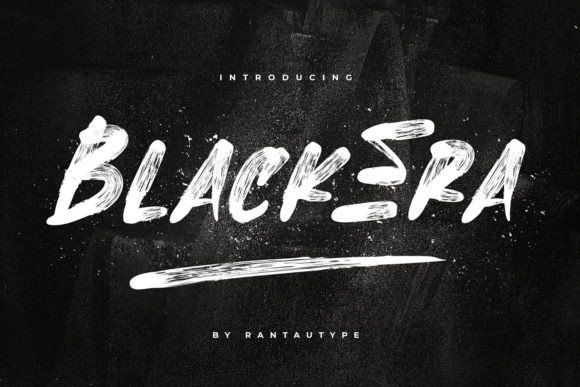
An Honest Review of Black Era Font
- ✨ Authentic Hand-Brush Feel: Black Era Font has an authentic hand-brush display feel that adds a touch of imperfection and personality to any design project.
- ✅ Perfectly Paired Complimentary Marker Font: The font comes with a complimentary marker font that pairs perfectly with the main font, making it easy to create visually appealing designs.
- 🔥 Super Handy Set of Swashes: The font includes a set of swashes that can add a creative touch to any design project.
- 📚 Modern, Readable, Stylish, Strong, Cool, Bold, and Catchy: Black Era Font is a versatile font that can be used for a wide range of design projects, from watermarks on photography to logo design, quotes, album covers, magazines, t-shirts, and more.
While Black Era Font is an amazing font, there are a few quirks to be aware of: 🤔
- ⚠️ May Not be Suitable for Body Text: Due to its bold and stylized nature, Black Era Font may not be suitable for body text or long-form content.
The Designer Inspiration Behind Black Era Font
The designer behind Black Era Font was inspired by the imperfections and uniqueness of hand-brush lettering. They wanted to create a font that would capture the essence of modern design while still being readable and stylish.
| Font Name | Black Era Font |
| Author | RantauType |
Q: What is Black Era Font?
A: Black Era Font is an authentic hand-brush display font with imperfections, a perfectly paired complimentary marker font, and a super handy set of swashes.
Q: What can I use Black Era Font for?
A: Black Era Font is perfect for a wide range of design projects, including watermarks on photography, logo design, quotes, album covers, magazines, t-shirts, and more.
Q: Is Black Era Font easy to use?
A: Yes, Black Era Font is easy to use and comes with a range of OpenType features, glyphs, and stylistic alternates that make it easy to customize your designs.